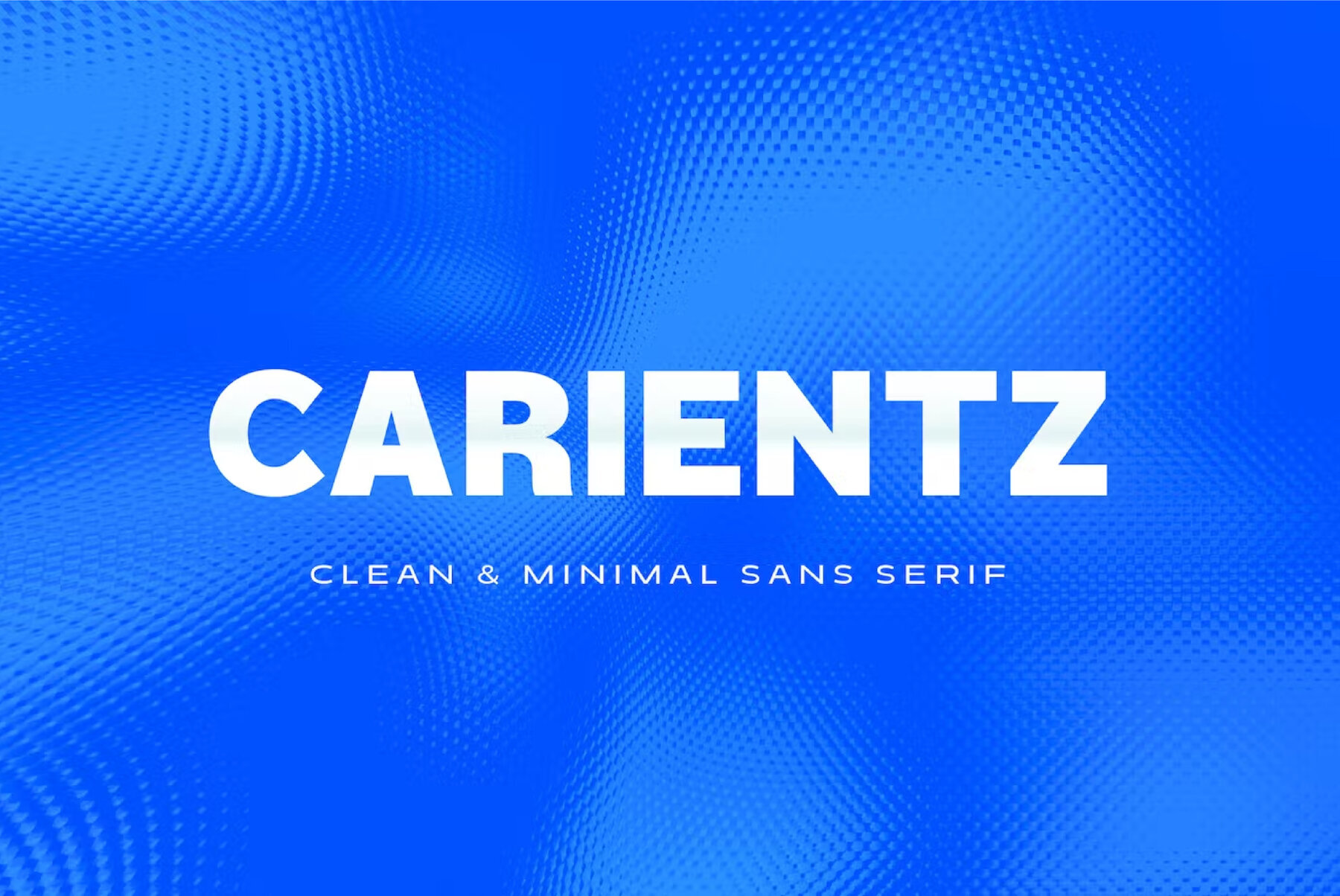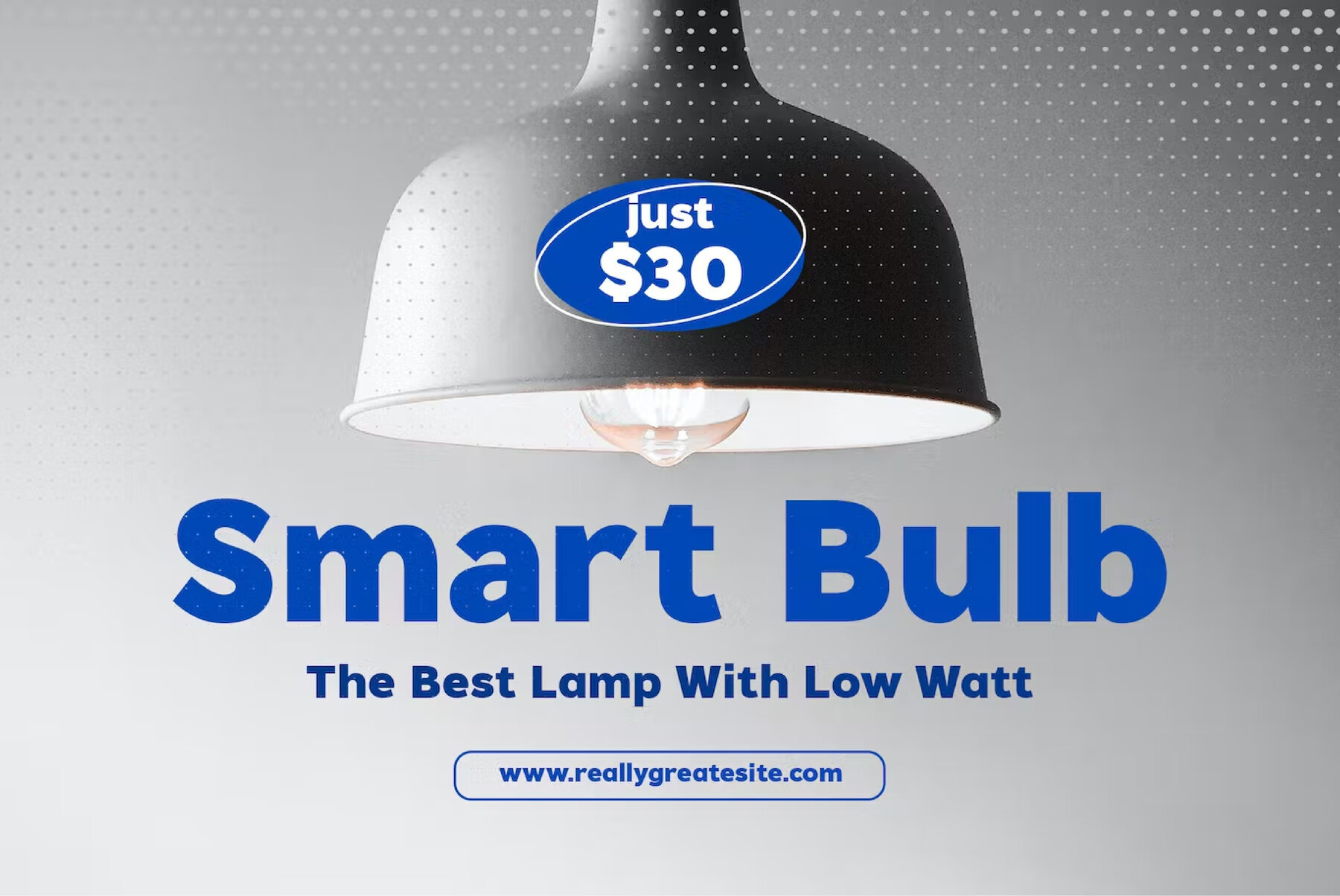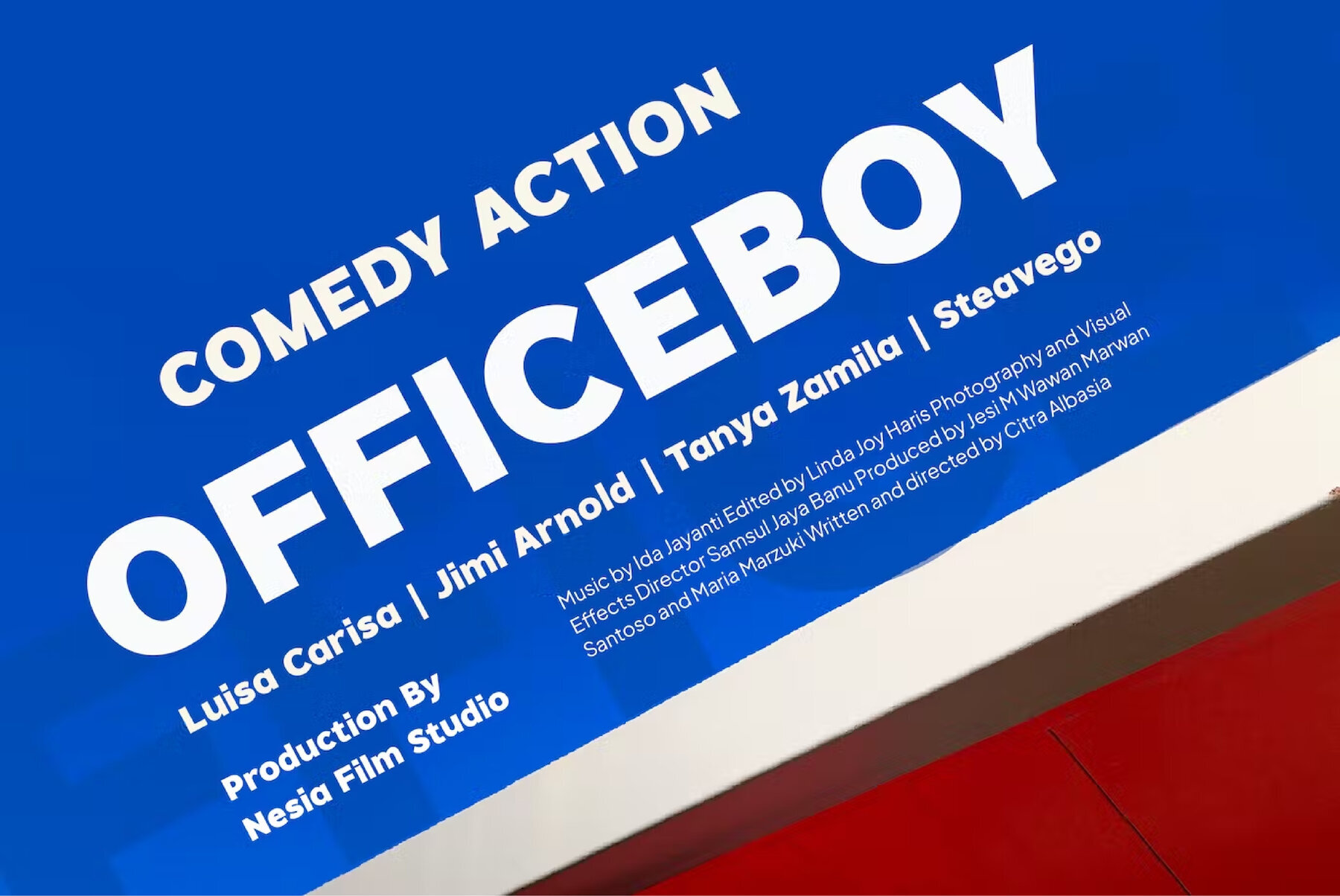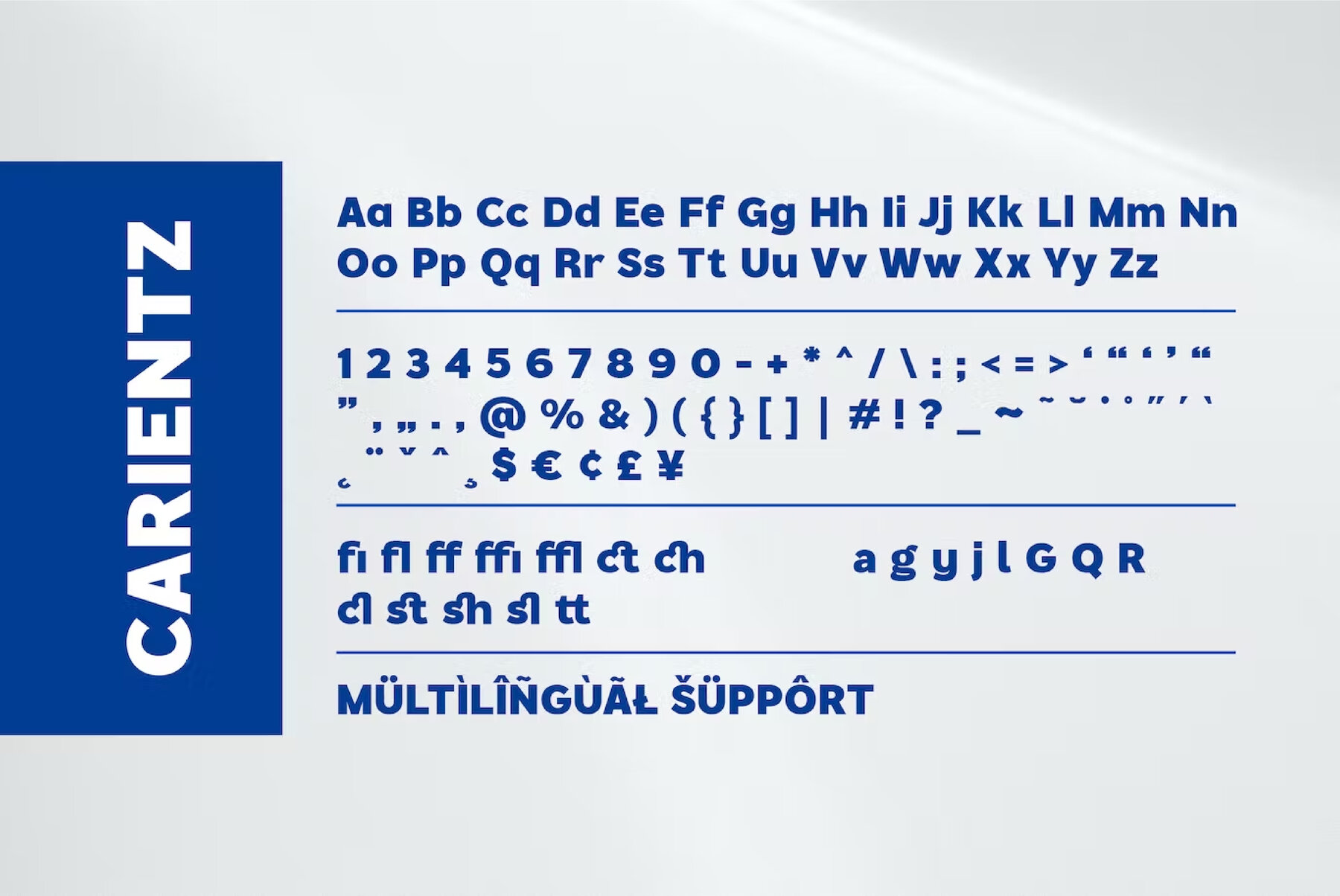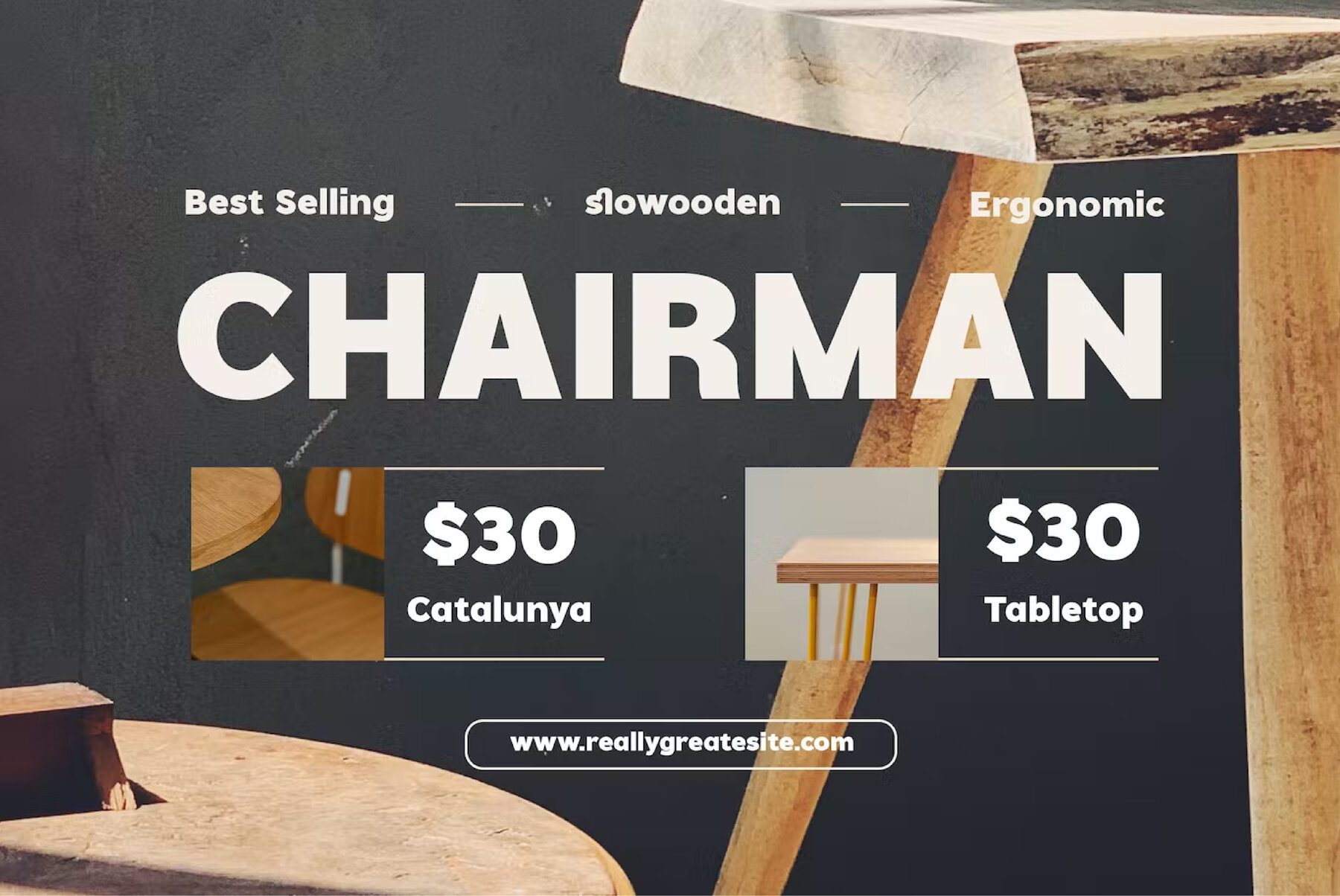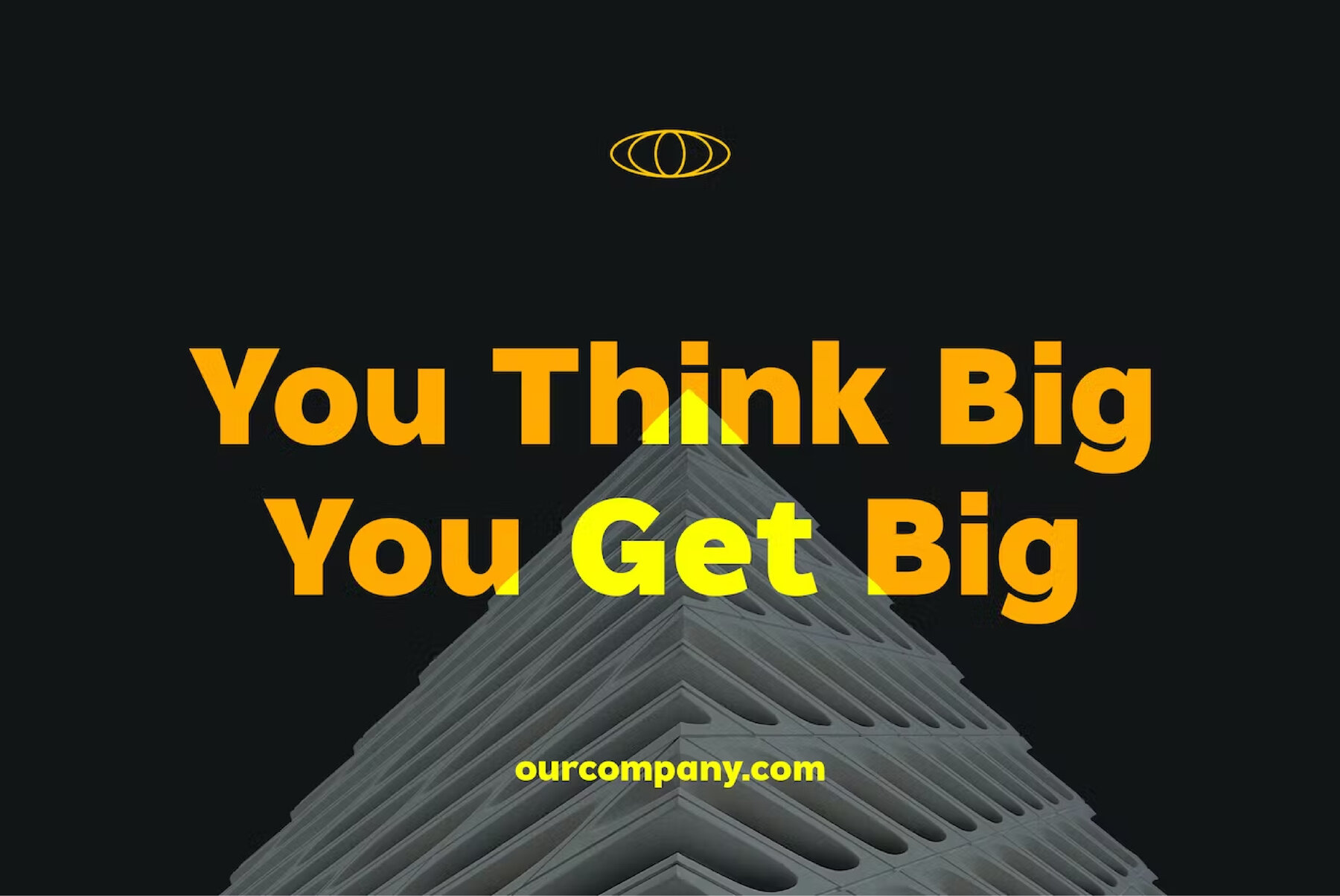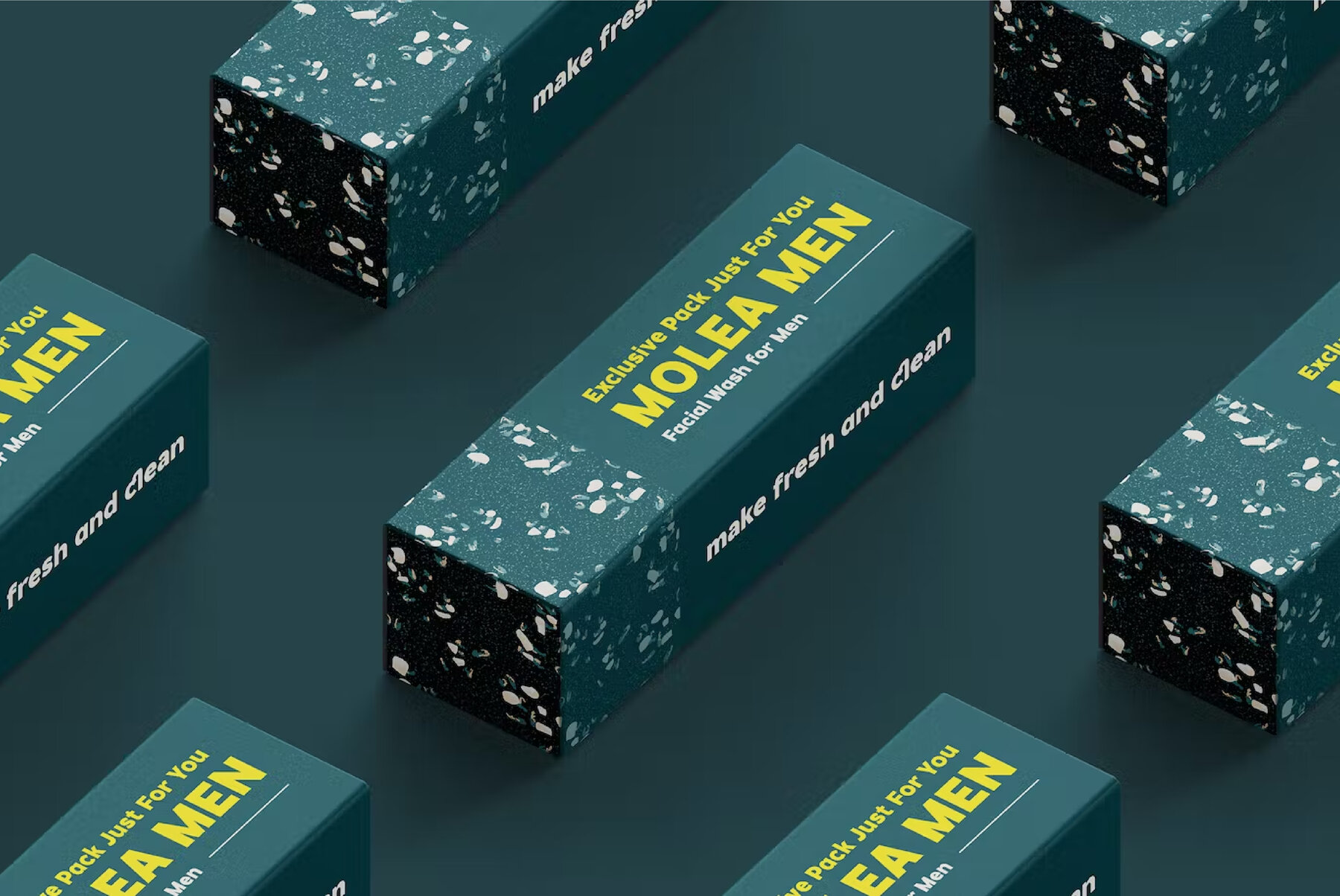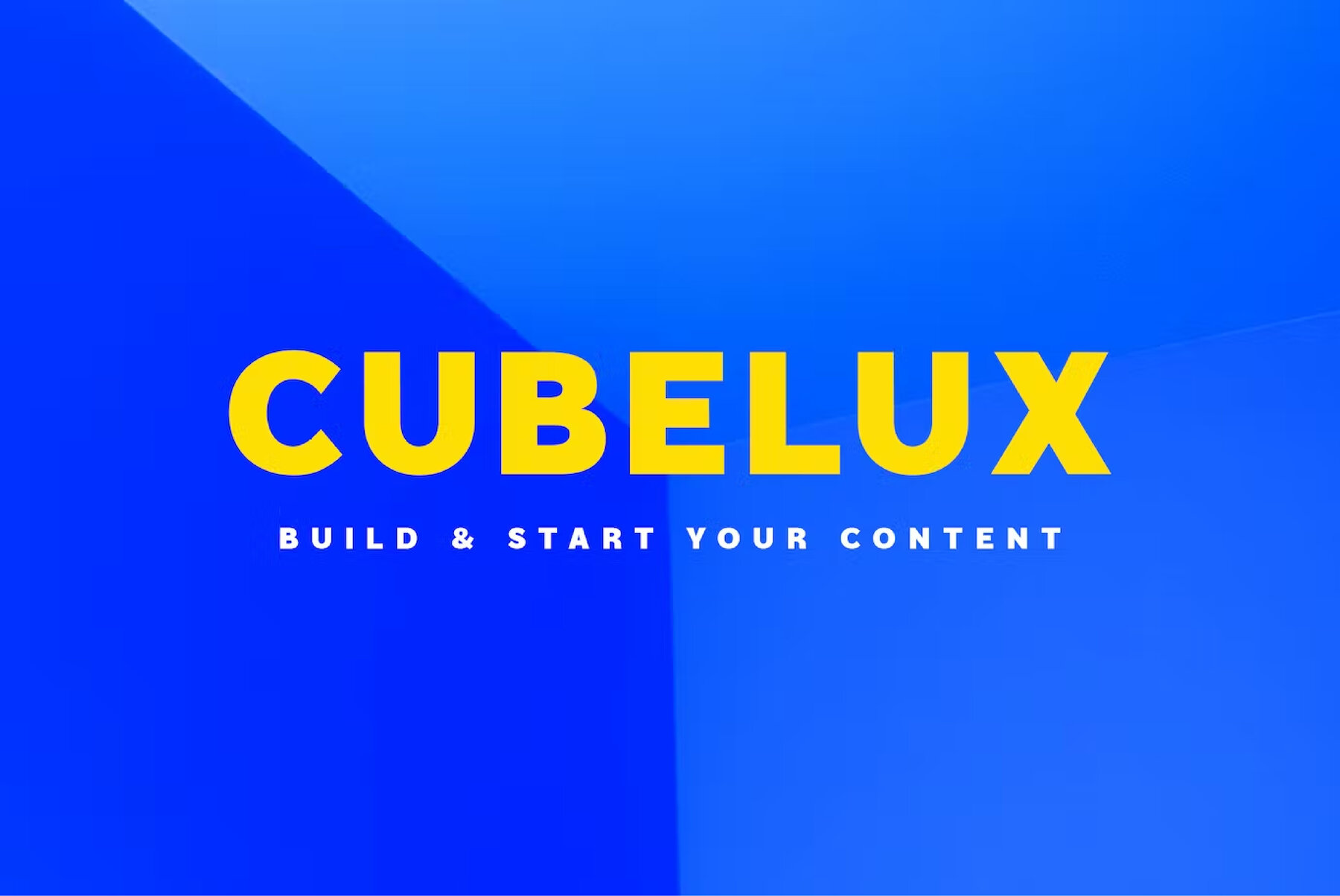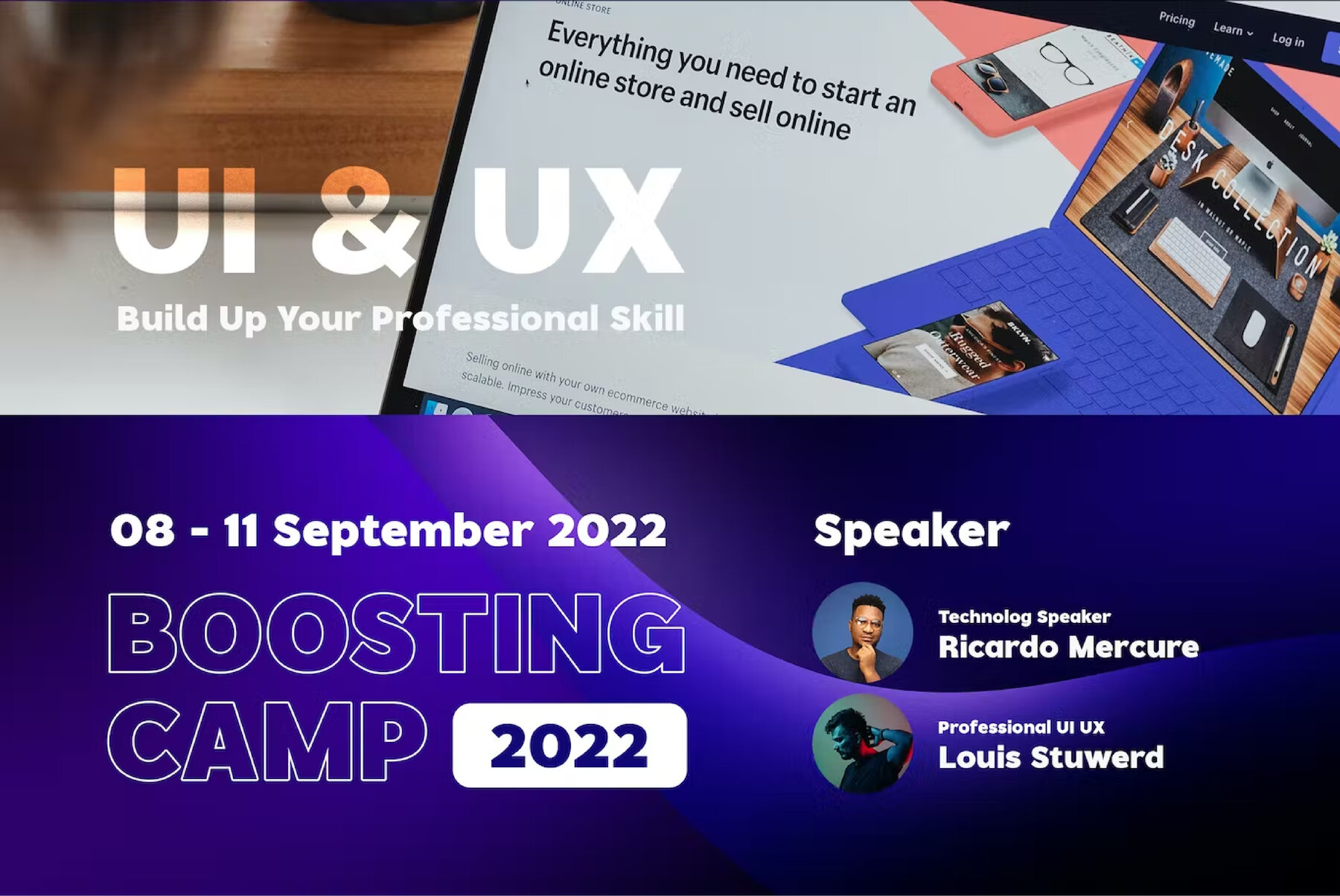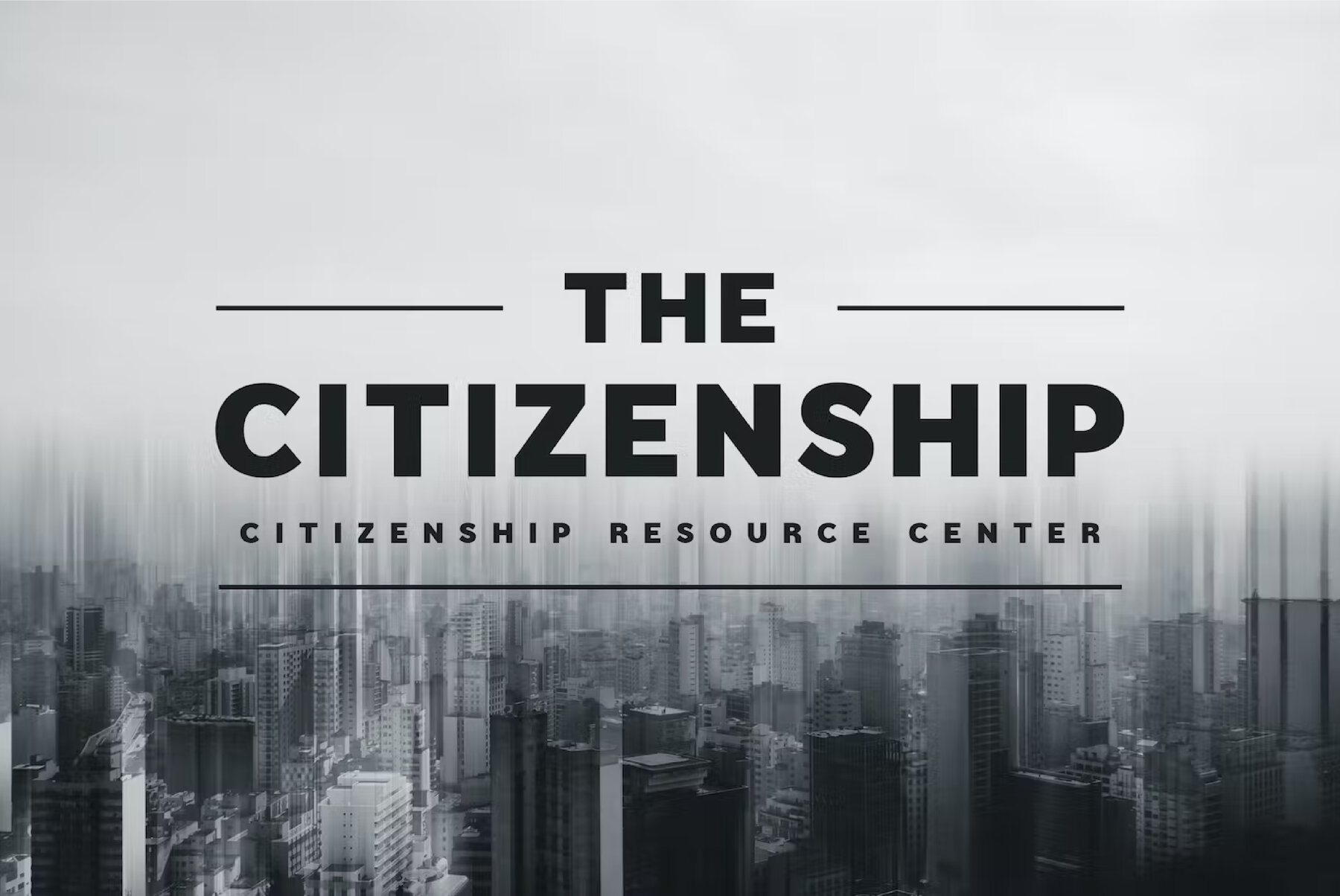
Carientz Font
Carientz Regular
Carientz is a modern minimal bold black Sans Serif font that is perfect for logo and branding design. With its techno gadget tech / technology display font, it's also ideal for a variety of design projects, including editorial design, stationery design, esport design, 80s retro design, game industry, sport racing, digital music poster, apps startup design, modern advertising design, art quote, home decor, book/cover title, special events, and more. Its versatility and boldness make it the perfect choice for any design project that requires a touch of modern minimalism and sophistication.